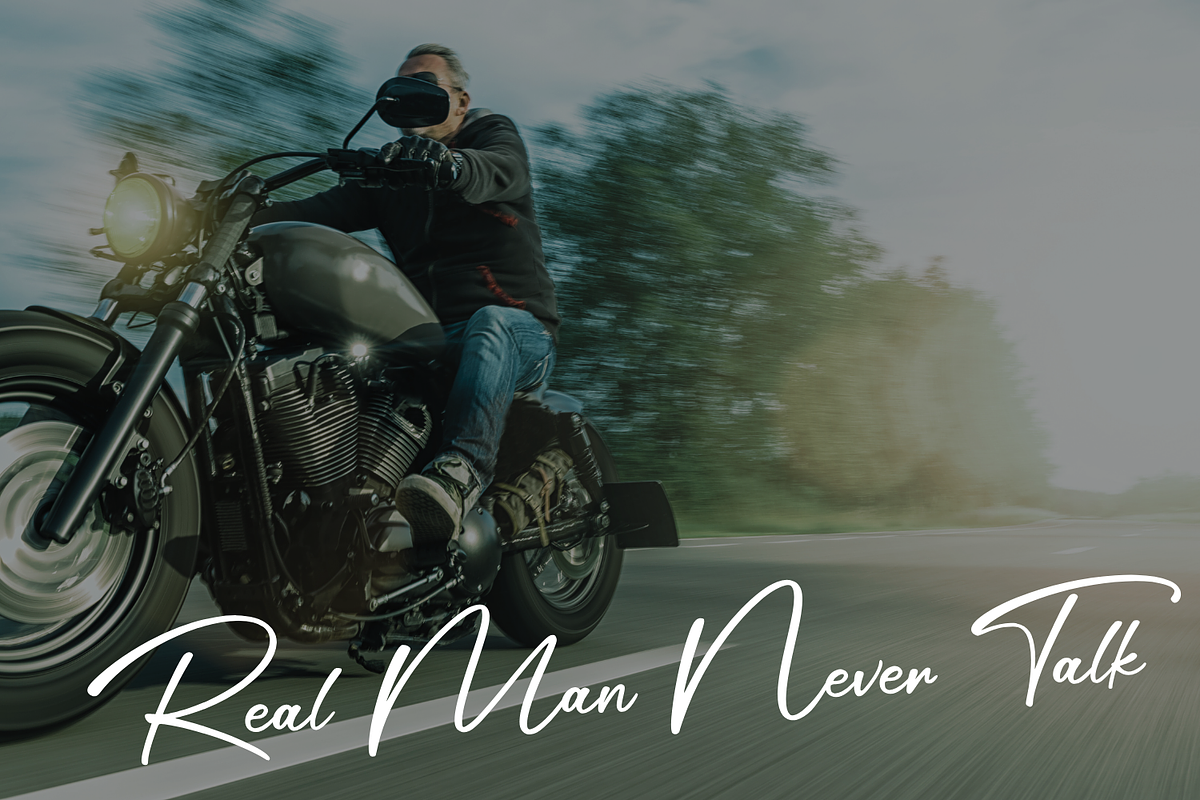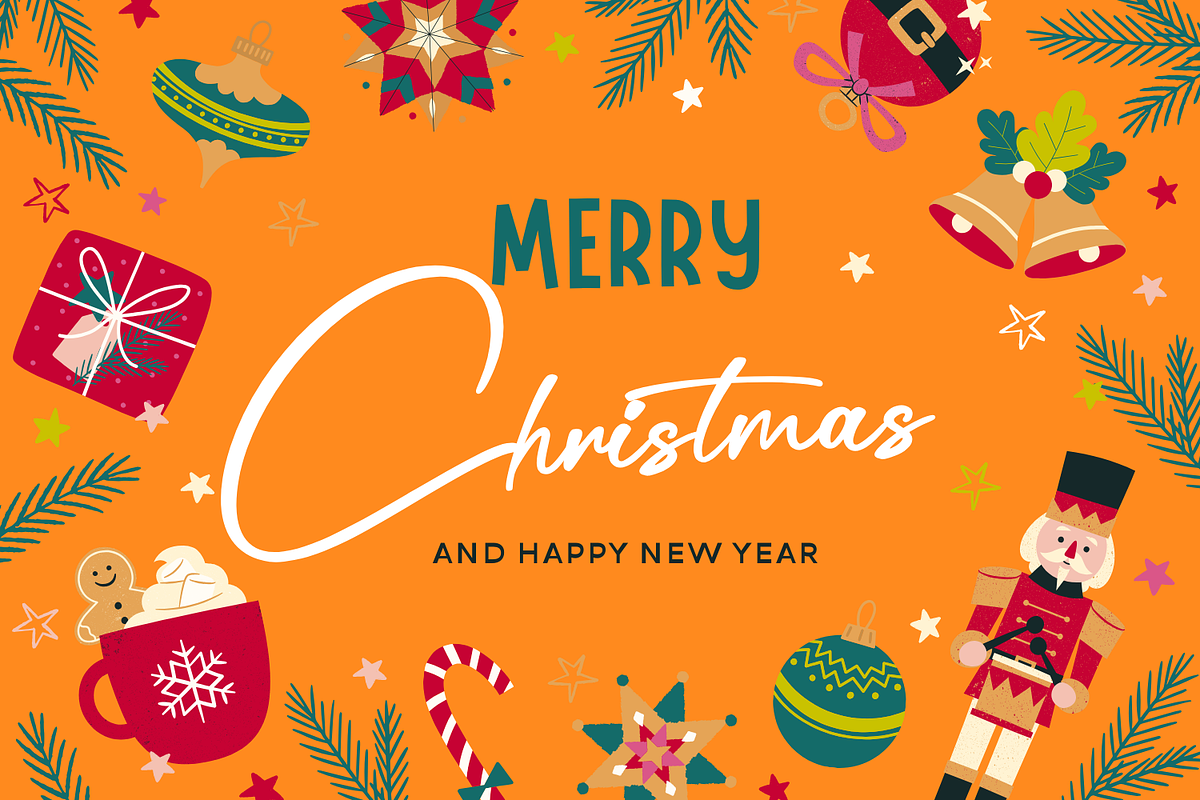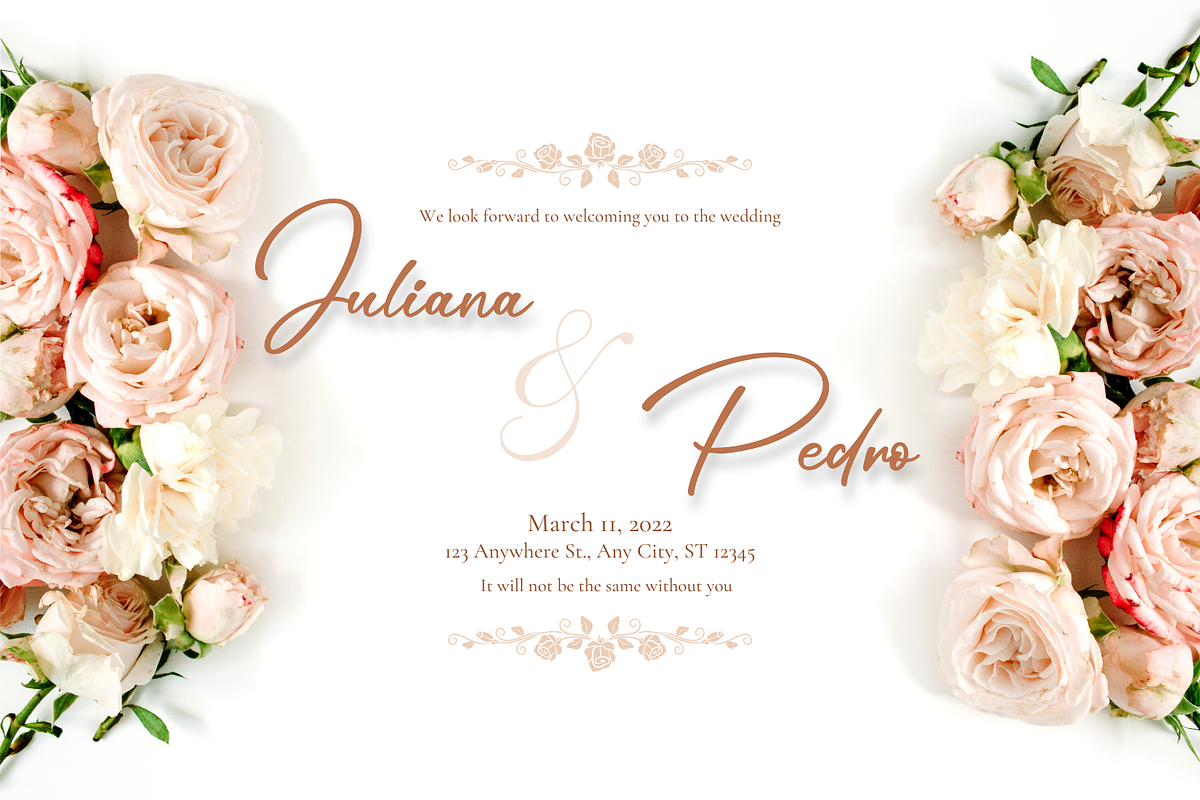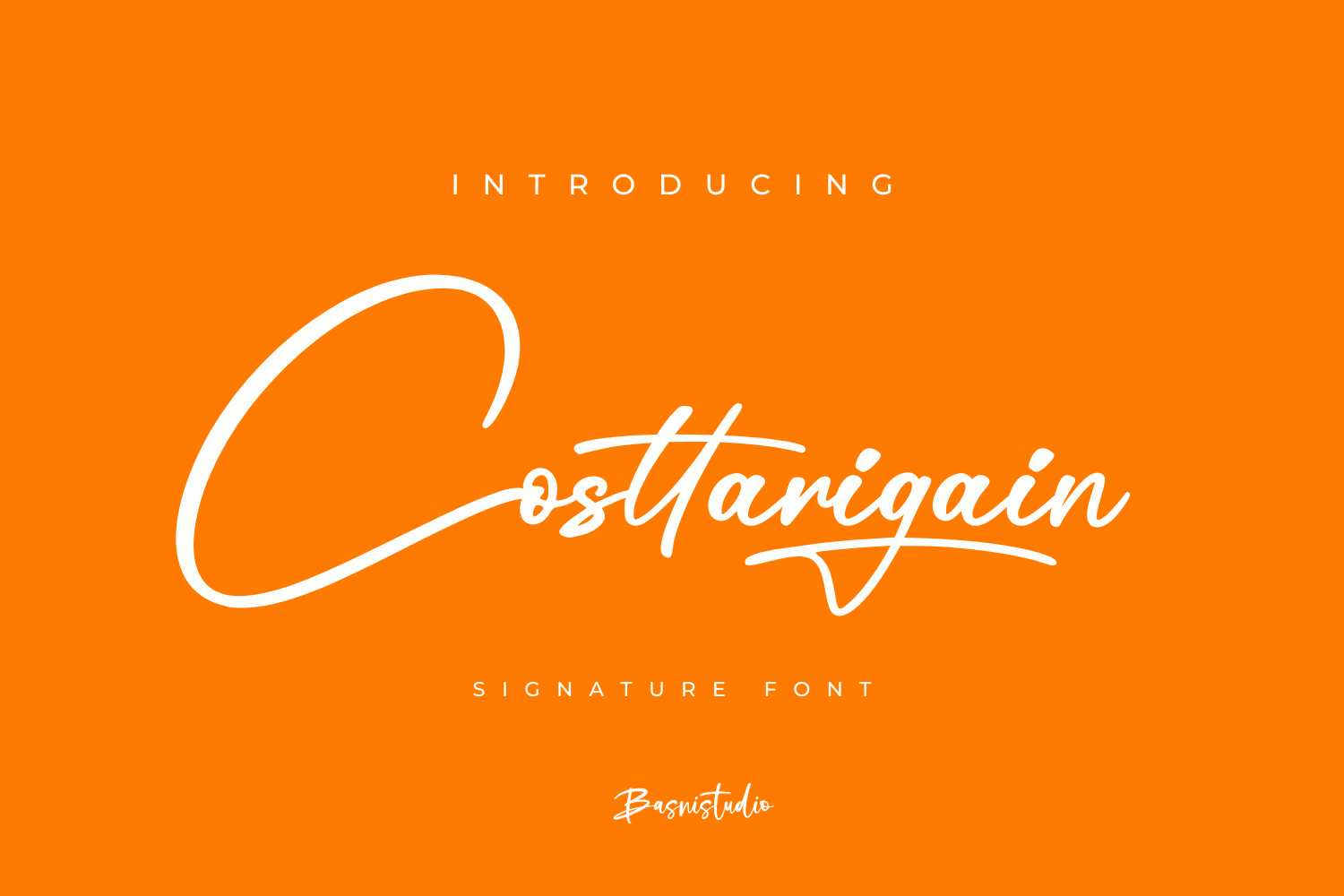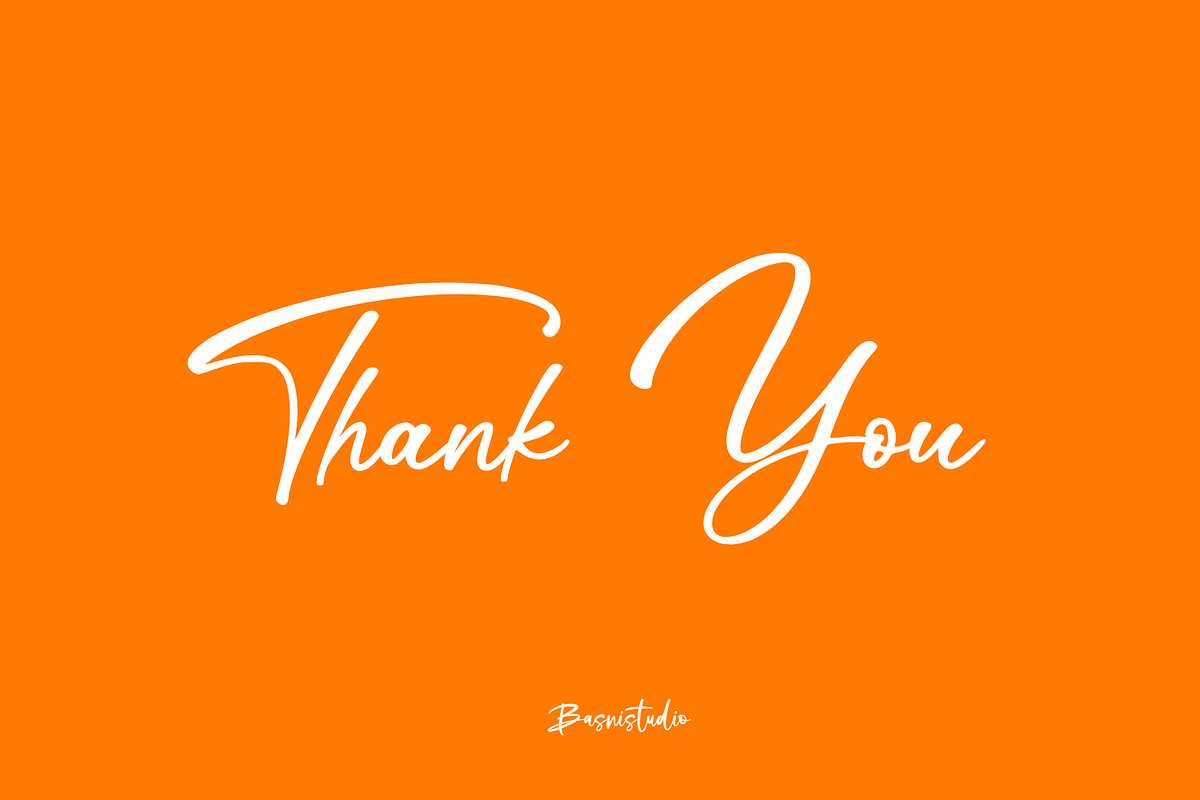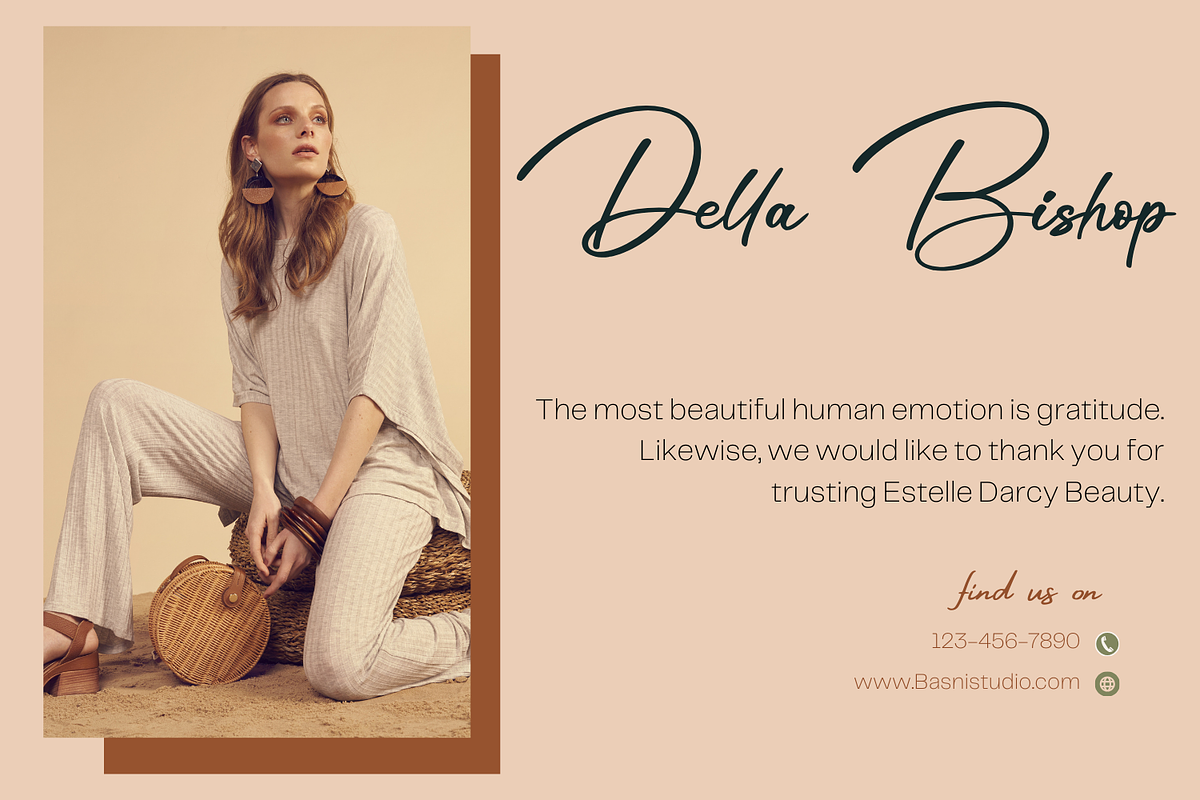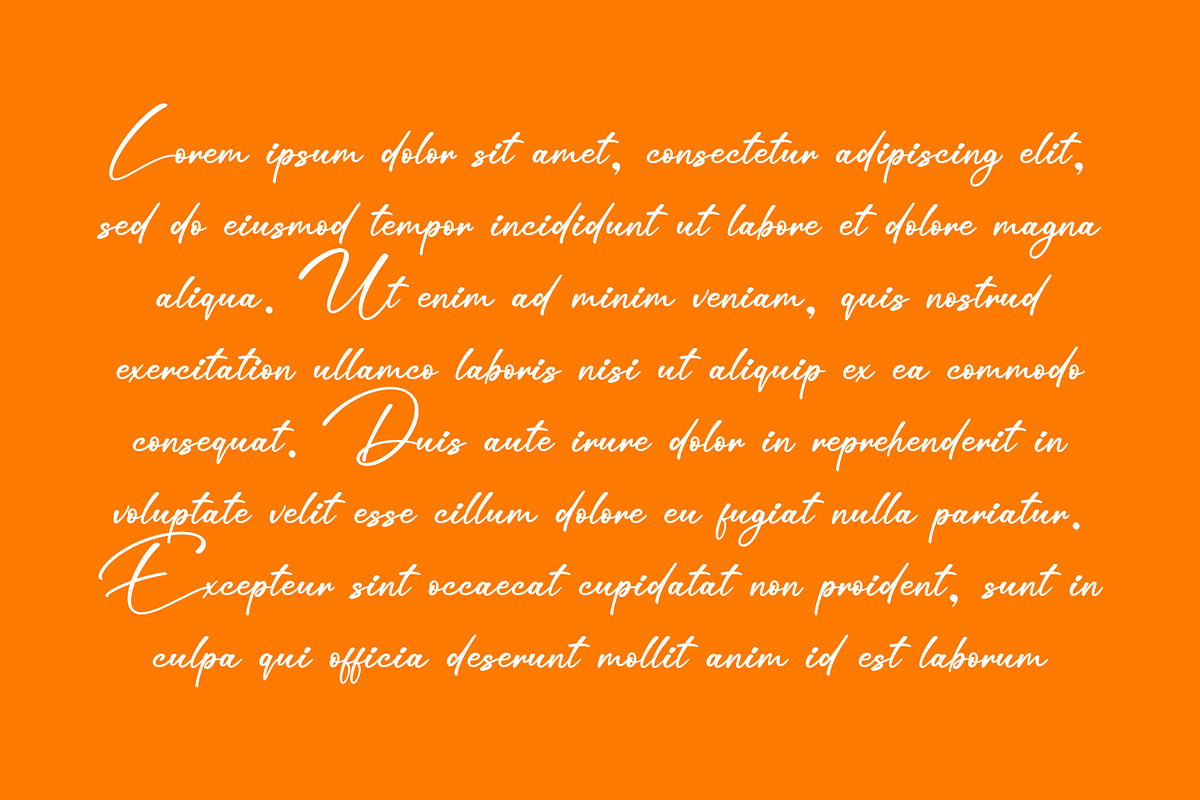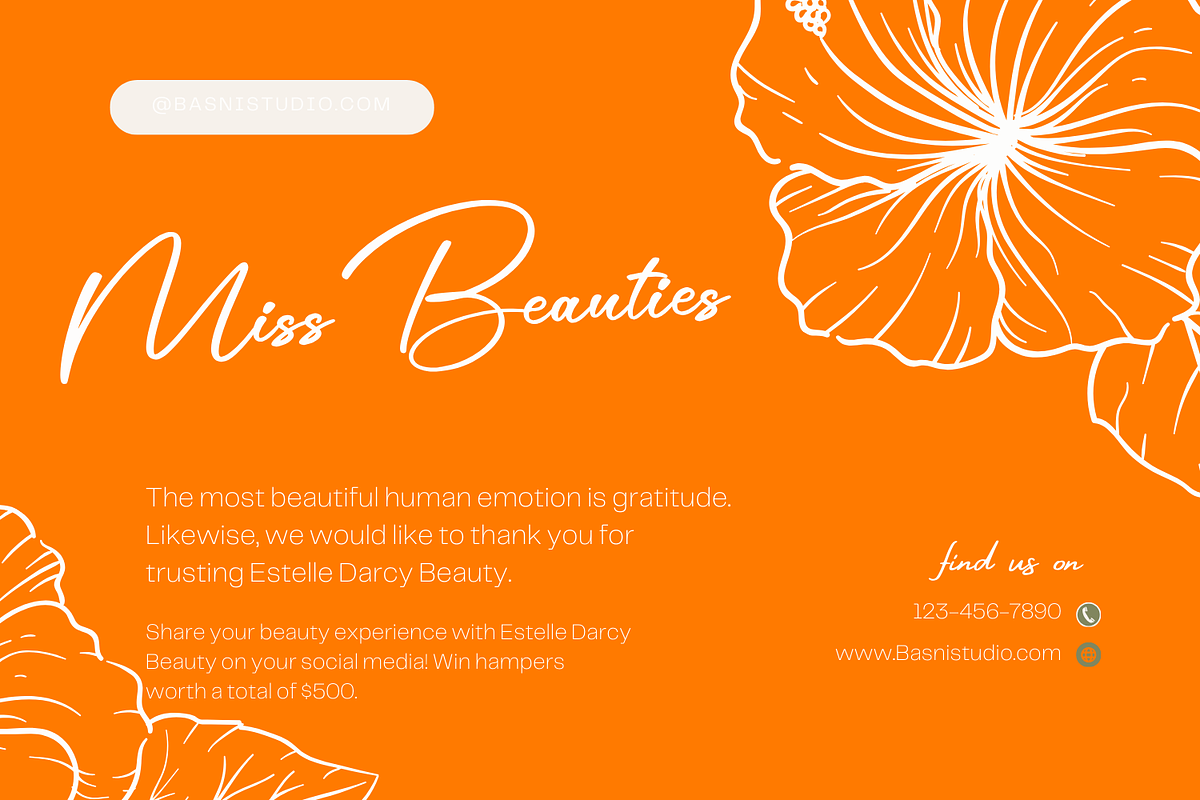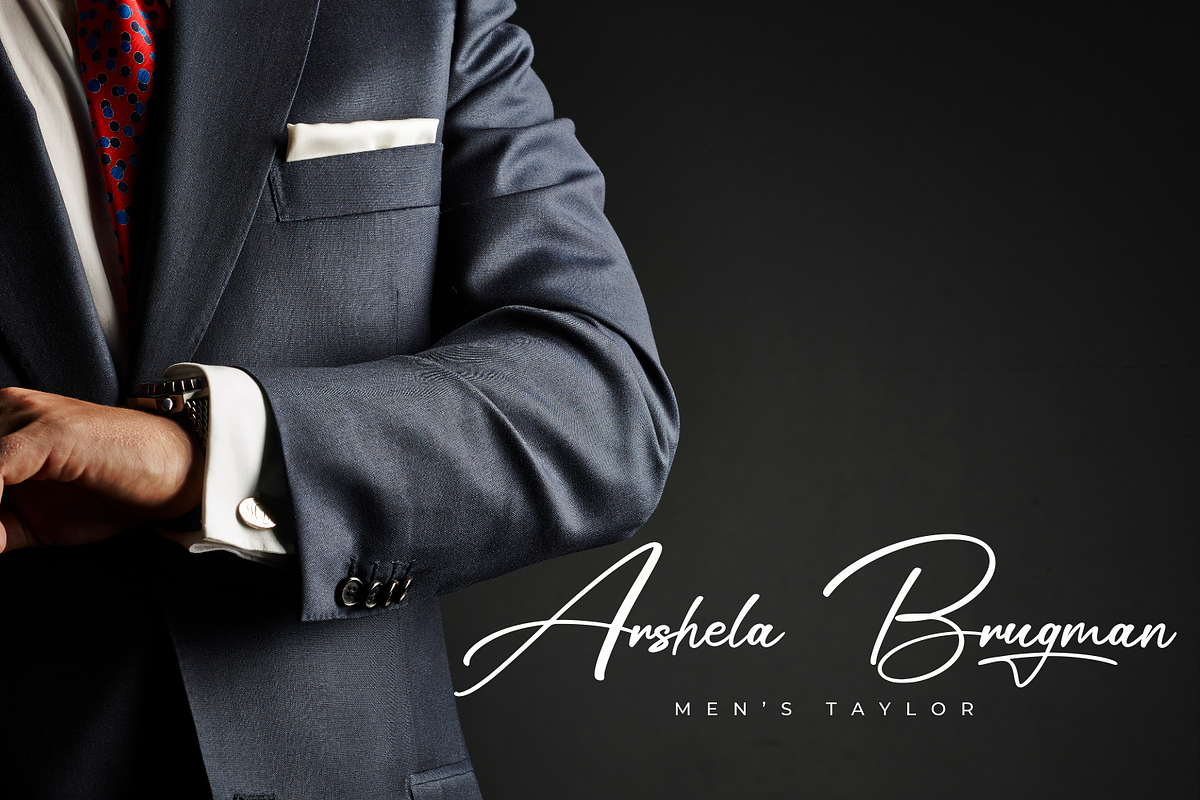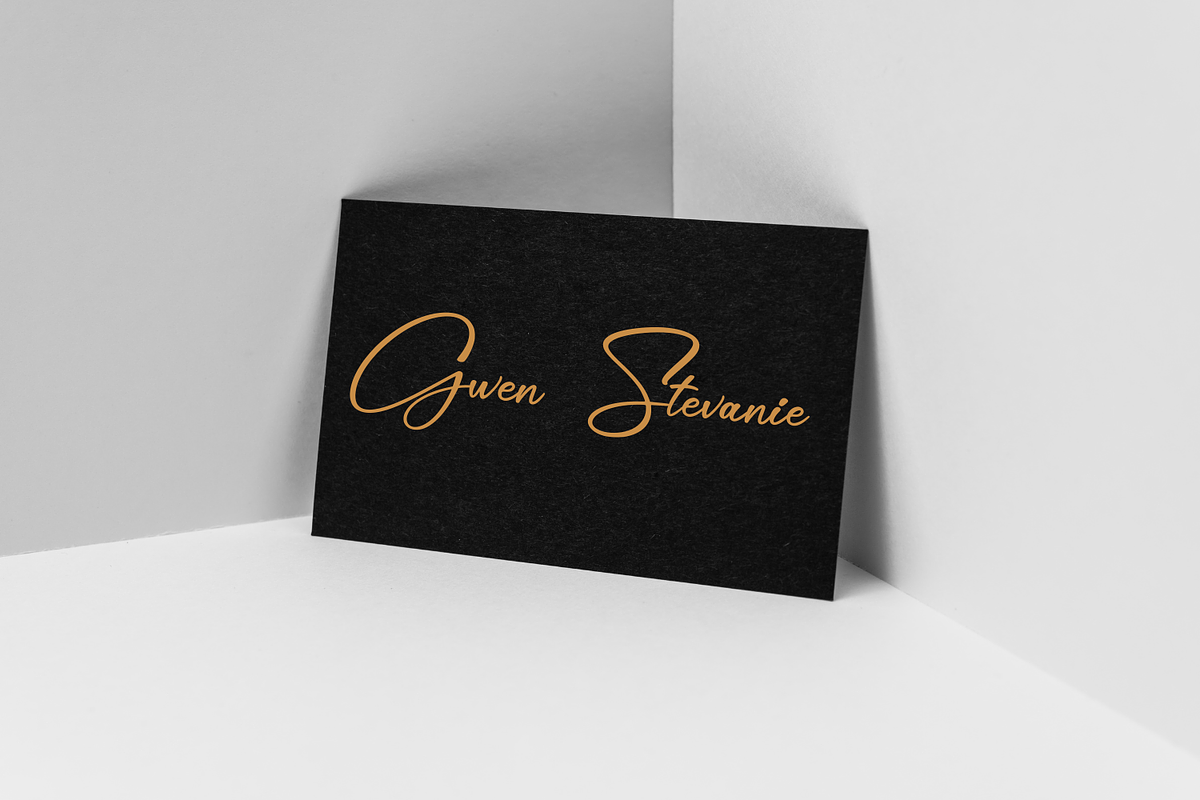
Costtarigain Signature Font
Introducing Costtarigain Signature Font
Costtarigain Signature Font, made by Naturaly Handwriting & Authentic Style.
This Font is perfect for an magazine, clothes, quotes, and so much more. This font is PUA encoded, which means you can access all of the glyphs.